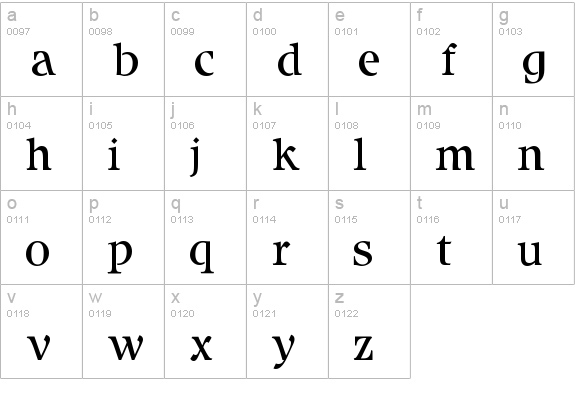
Isbell Regular is the standard, neutral variant in the Isbell typeface family \xE2\x80\x94 well suited to general body text, paragraphs, and standard typographic work.
Isbell Regular is a versatile and elegant font that exudes sophistication and charm. With its clean lines and balanced proportions, this font is perfect for a wide range of design projects, from branding and advertising to web design and packaging. Its classic letterforms have a timeless appeal that adds a touch of refinement to any design. One of the standout features of Isbell Regular is its versatility. It works equally well in both display and text settings, making it a go-to choice for designers looking for a font that can do it all. Whether you need to create eye-catching headlines or easy-to-read body text, Isbell Regular has you covered. But what makes Isbell Regular even more appealing is that it is free. That's right, this high-quality font is freely available to download at FontsMarket.com. Now you can enjoy the beauty and elegance of Isbell Regular without breaking the bank. It's a fantastic opportunity to elevate your design projects without any cost constraints. So why wait? Download Isbell Regular today and discover the endless possibilities it offers. Whether you're a professional designer or a hobbyist, this font is sure to become a valuable asset in your creative toolkit. Don't miss out on the opportunity to add a touch of sophistication to your designs with Isbell Regular. Get it now at FontsMarket.com and take your projects to a whole new level.